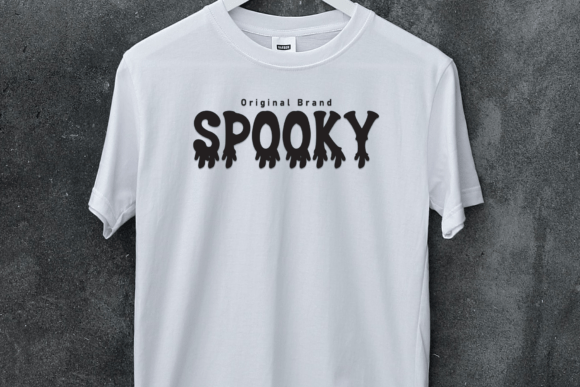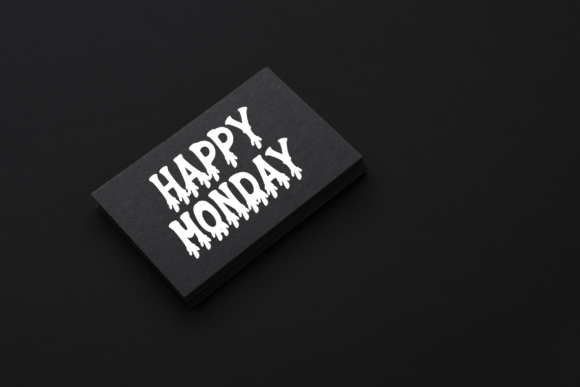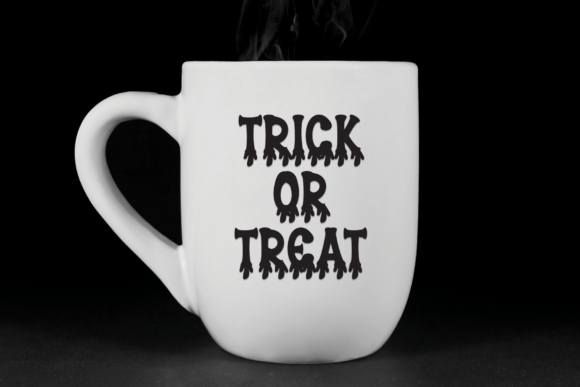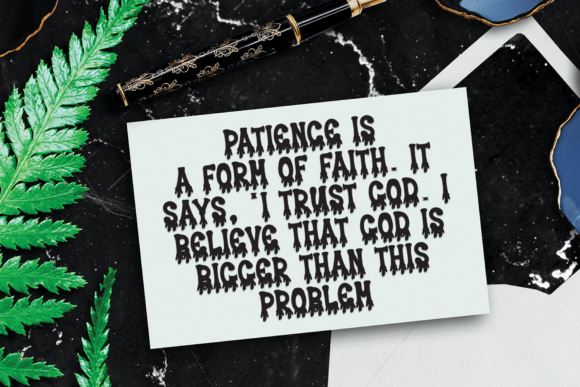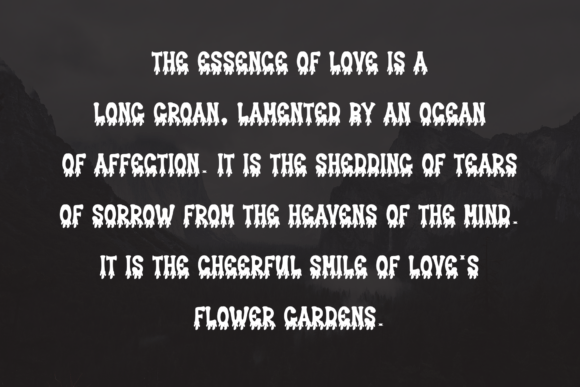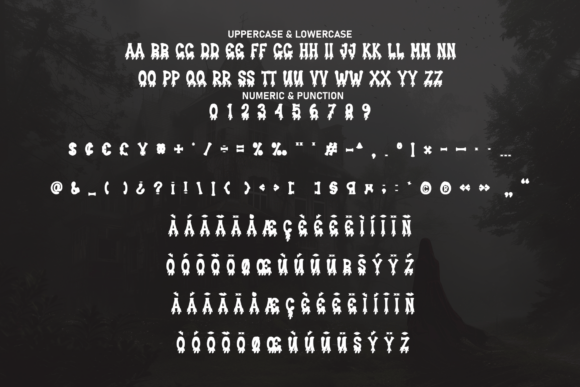
Introduction to Scarry Horror Font
As a designer, have you ever been working on a creative project and suddenly, you’re stuck on finding the perfect font to bring your vision to life? You scroll through countless options, but nothing seems to capture the essence of your idea. That’s where the delightfully charming Scarry Horror Font comes in – a handwritten display font that radiates immense sweetness and a friendly vibe.
With its adorable and playful spirit, this font is a perfect match for adding a fun twist to your wedding invitations, greeting cards, or any design that craves a dash of joy. But what makes the Scarry Horror Font truly valuable for designers is its high quality and the fact that it’s available for free download, making it an excellent design resource for both personal and commercial projects.
Key Features of Scarry Horror Font
- High-quality, unique typography with a spooky and eerie feel, perfect for creative projects.
- Unique characteristics include irregular shapes, uneven letter spacing, and a distressed texture, adding to its horror theme.
- Perfect for Halloween-themed designs, horror movies, and other creative projects that require a spooky atmosphere.
Honest Review: Scarry Horror Font
I recently stumbled upon the Scarry Horror Font, and I must say it’s a unique addition to my design resource collection. This font is perfect for creatives looking to add a touch of eeriness to their projects. The free download was a major plus, as it saved me some valuable time and budget.
- ✨ The font’s high quality is evident in its crisp lines and detailed texture, making it perfect for use in creative projects.
- ✨ The transparent background option gives designers the flexibility to place the font over any image or color, adding an extra layer of creativity to their designs.
- ✨ The font’s bold and gothic design elements make it ideal for horror-themed projects, but it can also be used in other creative contexts to add a touch of mystery.
- ⚠️ The font’s limited character set may be a hindrance for designers who need to use it for extensive text-based projects.
- ⚠️ The font’s gothic design may not be suitable for all audiences, so designers should consider their target market before using it.
Overall, I’m impressed with the Scarry Horror Font. While it has its limitations, its unique design and high quality make it a valuable addition to any designer’s toolkit. Whether you’re working on a horror-themed project or simply looking to add some creative flair, this font is definitely worth checking out.
The Scarry Horror Font is a unique and high-quality design resource perfect for creative projects that require a spooky atmosphere. This free download font is ideal for designers, writers, and artists looking to add a touch of horror to their work.
Tips for Getting the Most Out of Scarry Horror Font
To get the most out of the Scarry Horror Font, use it in combination with other design elements, such as images and graphics, to create a cohesive and eerie atmosphere.
The Scarry Horror Font is perfect for various use cases, including:
- Horror movie posters and trailers
- Spooky Halloween decorations and invitations
- Creepy video game designs and characters